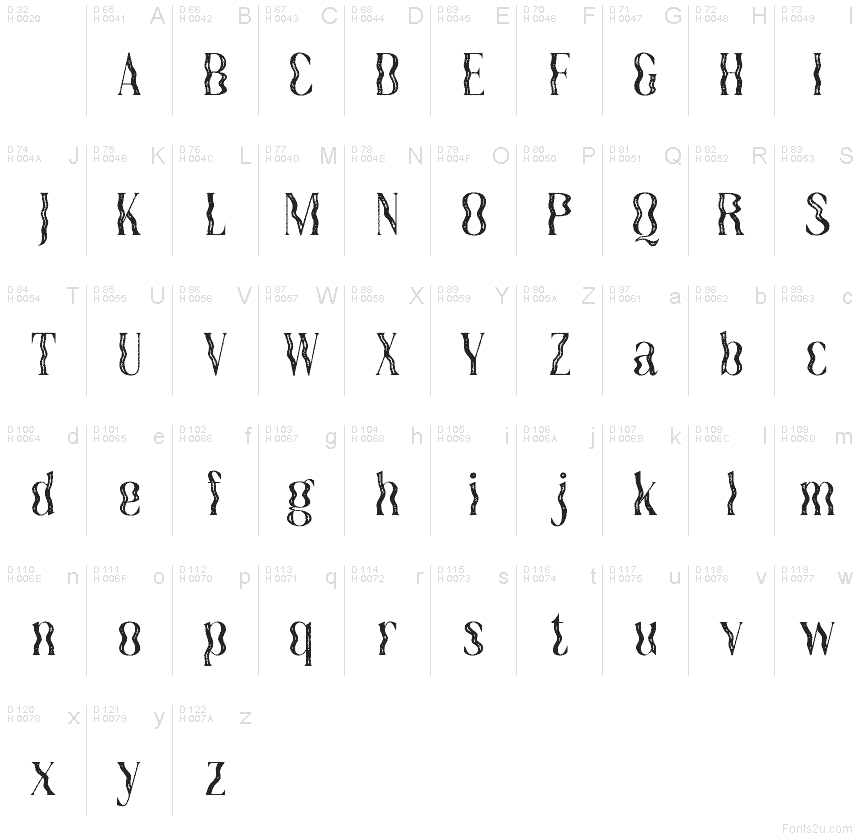
Quagey Stamp Regular Demo
Quagey Stamp font by Craft Supply Co. is a distorted display font in a condensed width. It combines retro-inspired elements with an ornate, decorative design where artistic flair meets elegance. Each character appears unique thanks to the textured stamp-like effect giving it a worn-out and vintage appeal.